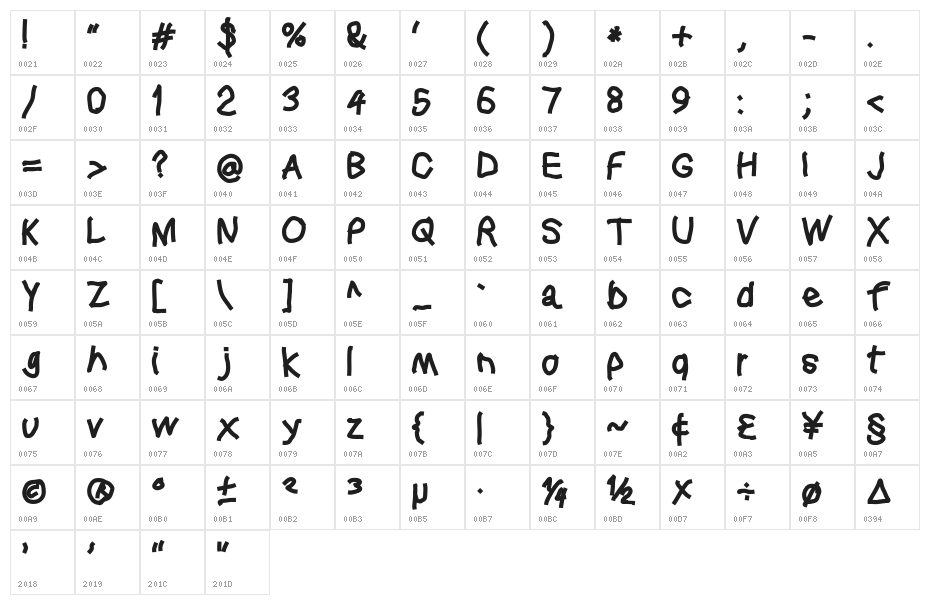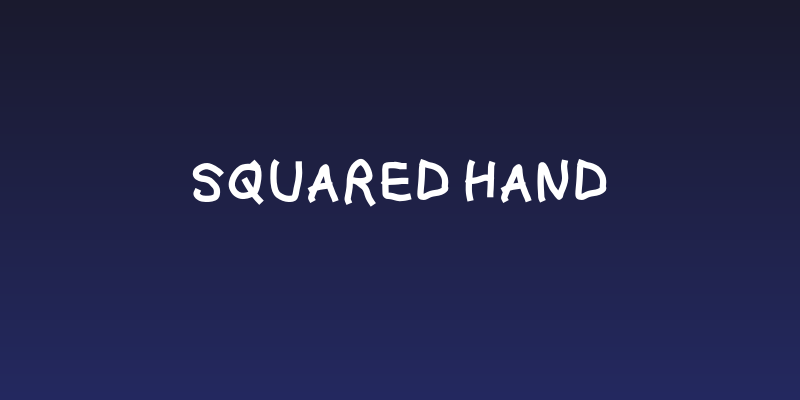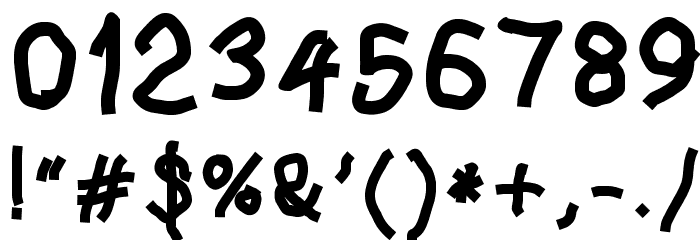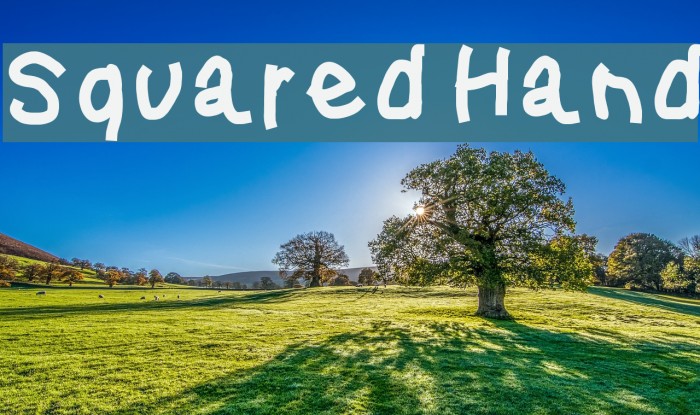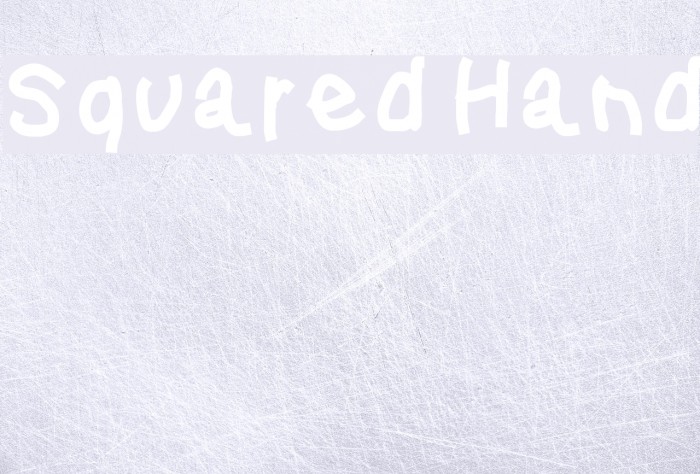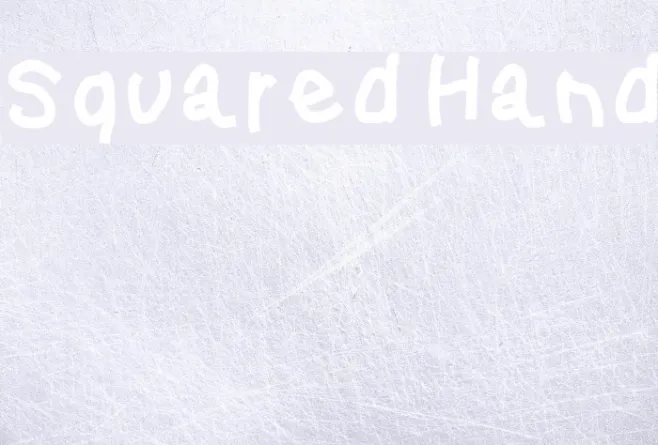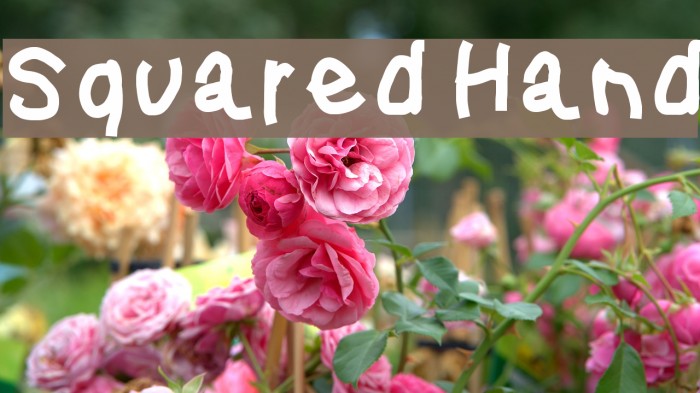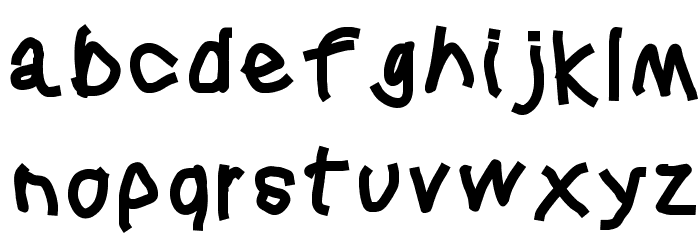
Squared Hand Font
Squared Hand Description
This font exhibits a playful and informal style, characterized by its hand-drawn appearance. The letters are bold and slightly irregular, giving it a whimsical and casual feel. The strokes are thick and consistent, with a slight tilt that adds to its dynamic nature. The uppercase and lowercase letters maintain a cohesive look, while the numerals and special characters complement the overall design. This font is ideal for projects that require a personal touch, such as greeting cards, children's books, or creative branding.